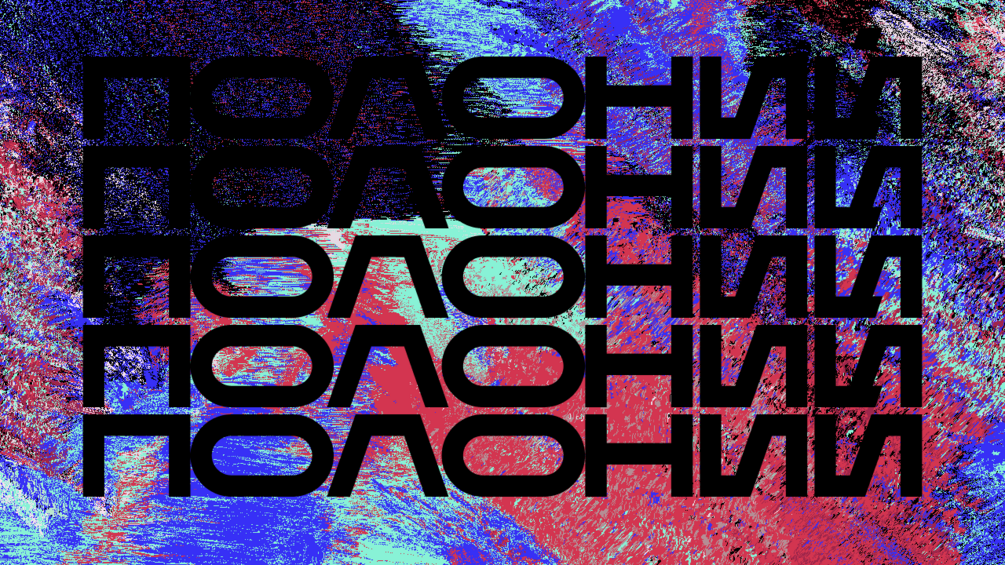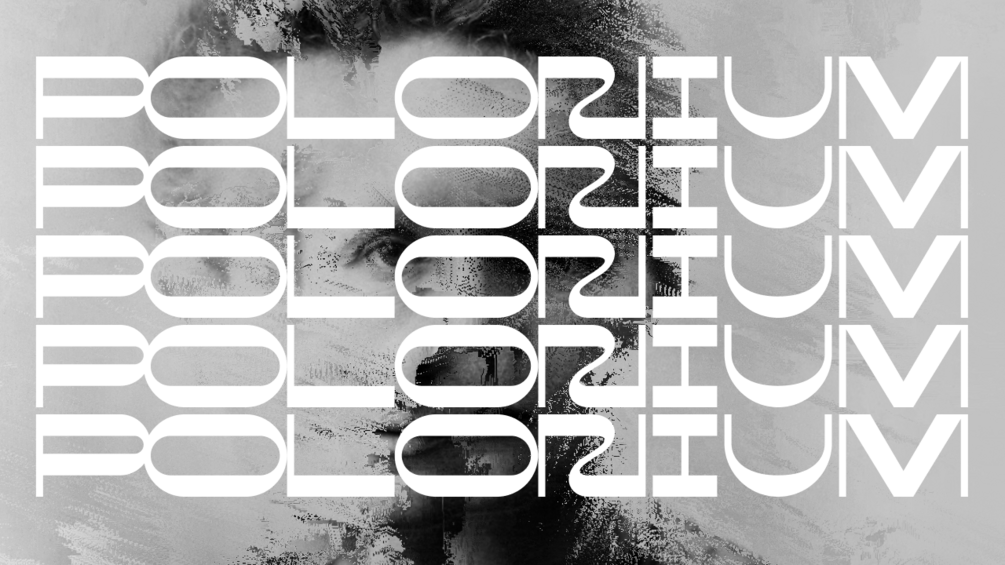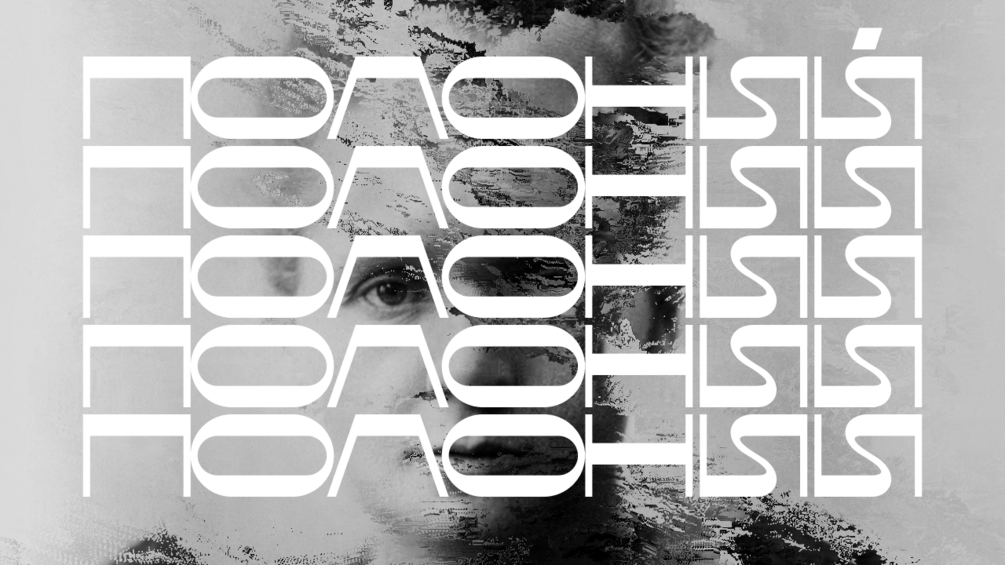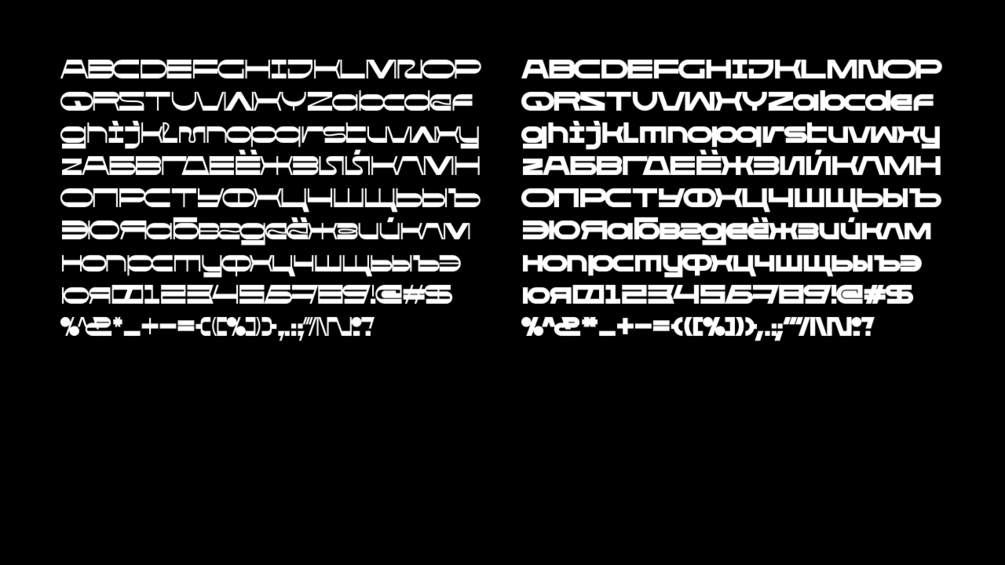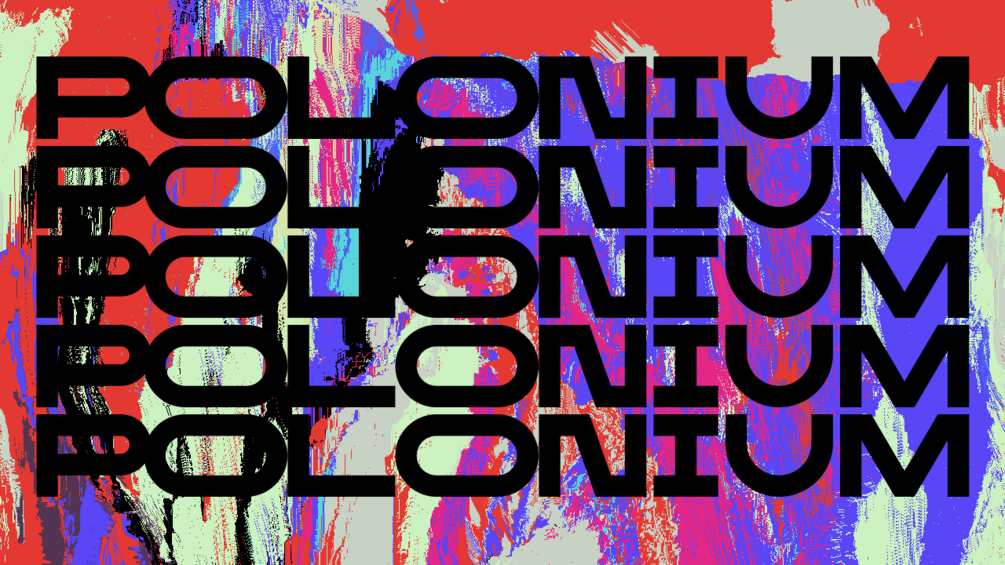
Polonium - free display font
Alexey Atapin
Polonium is a display font with regular and bold variations. The font was inspired by the story of polonium discovery in 1898 by Marie and Pierre Curie.
Included two, regular & bold font files, Latin and Cyrillic glyphs.